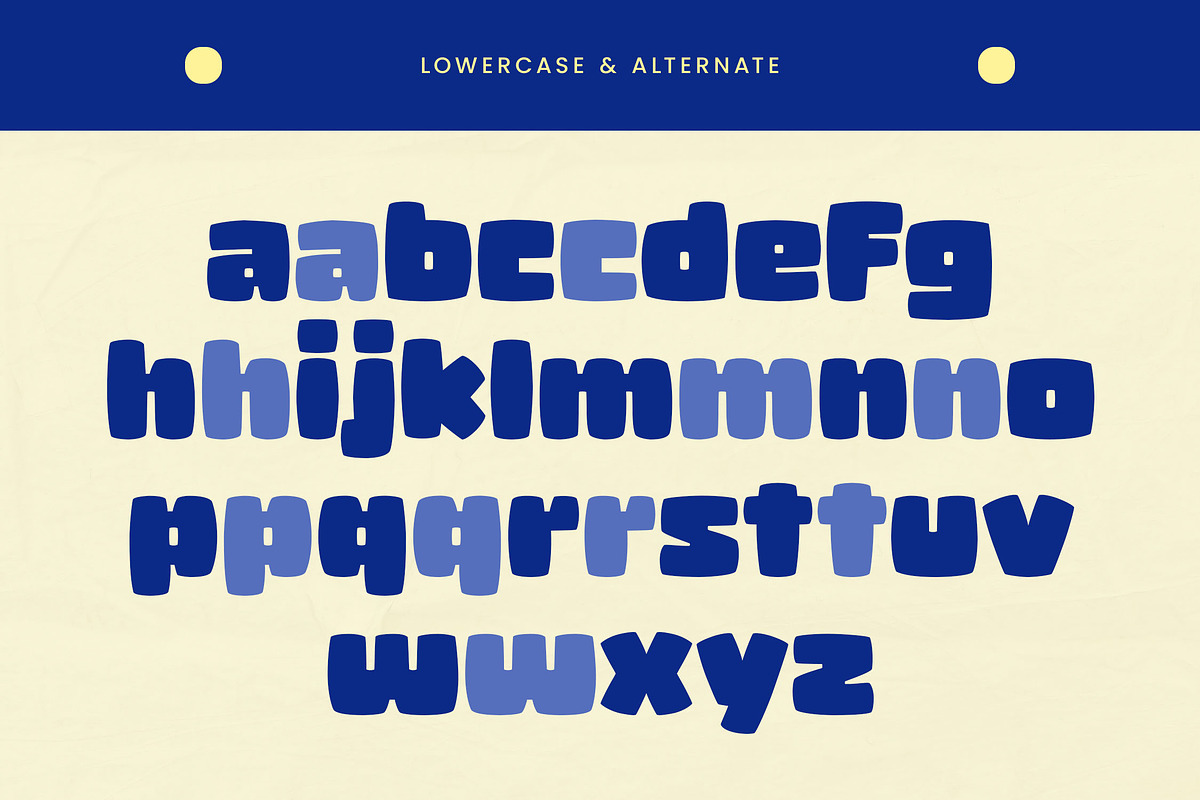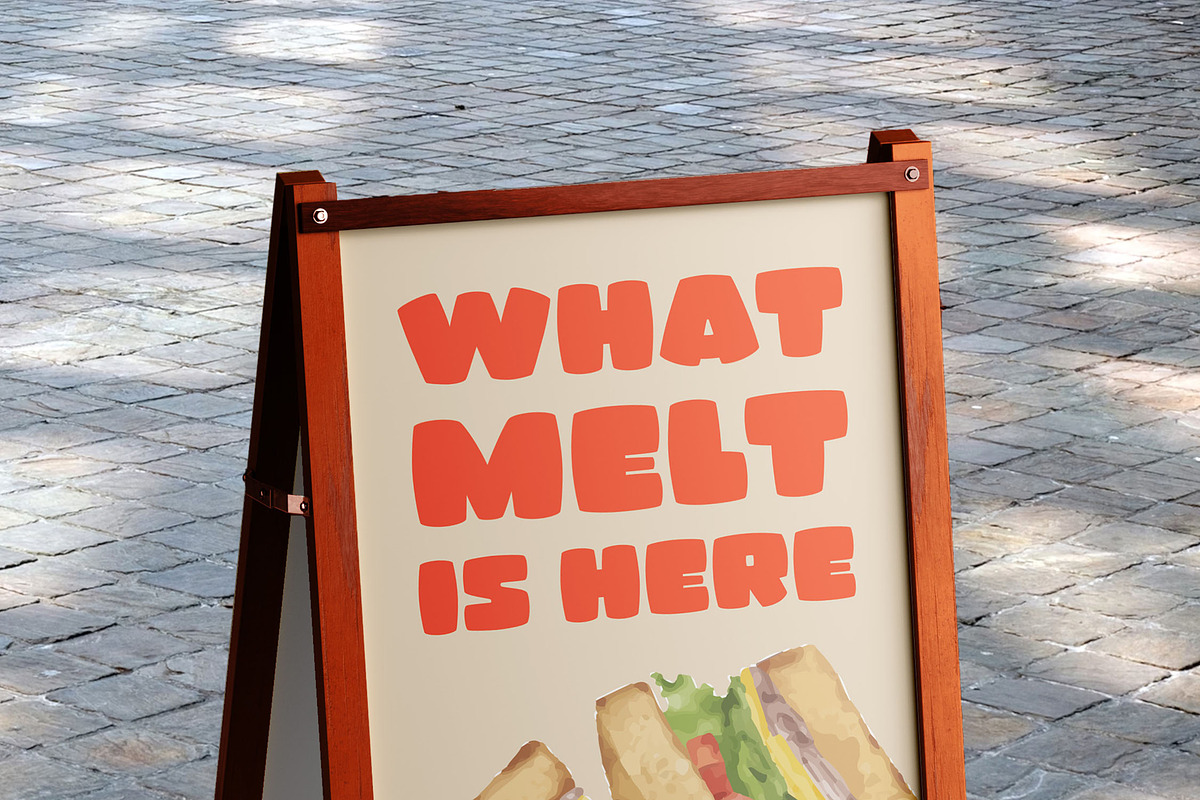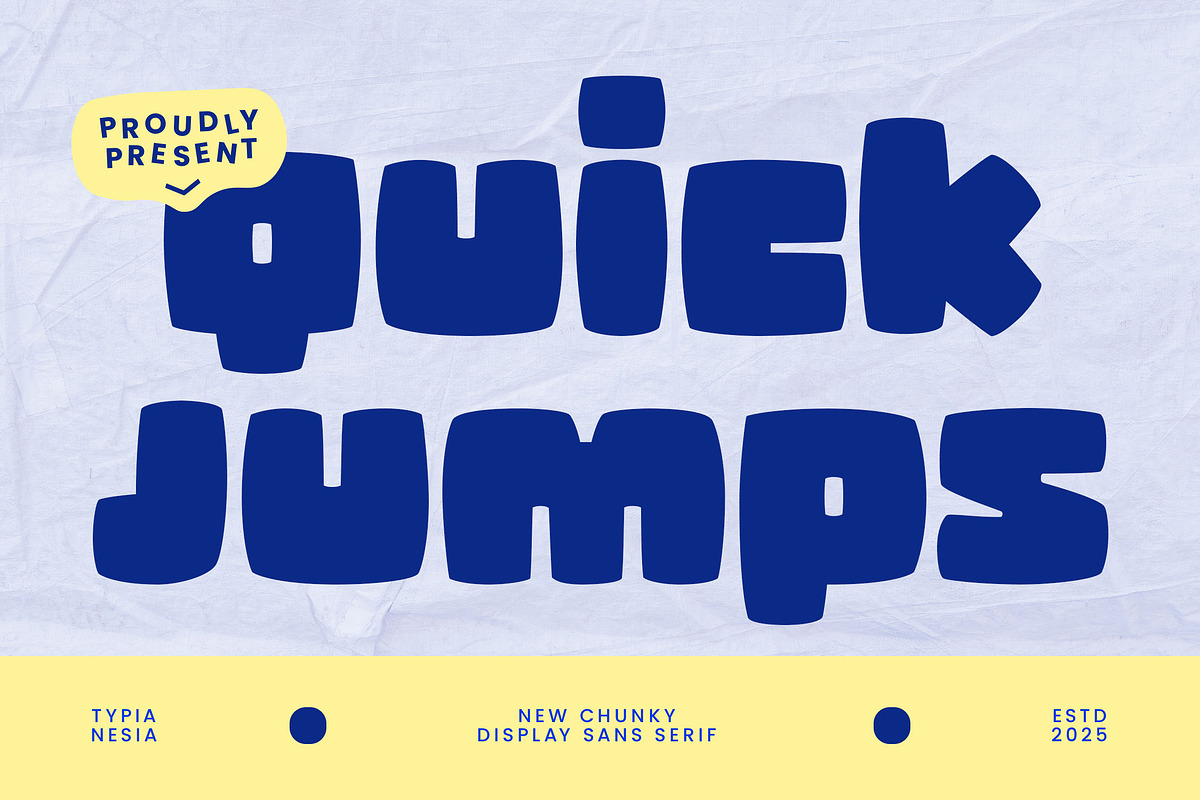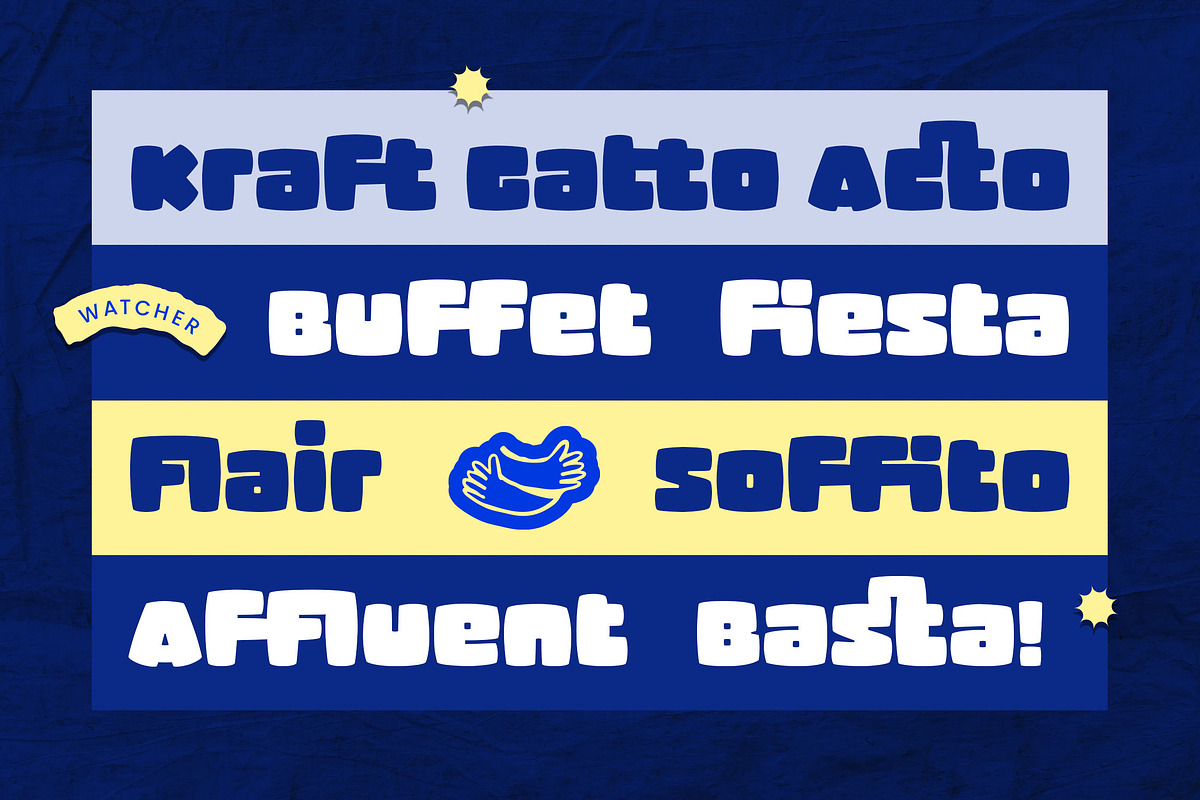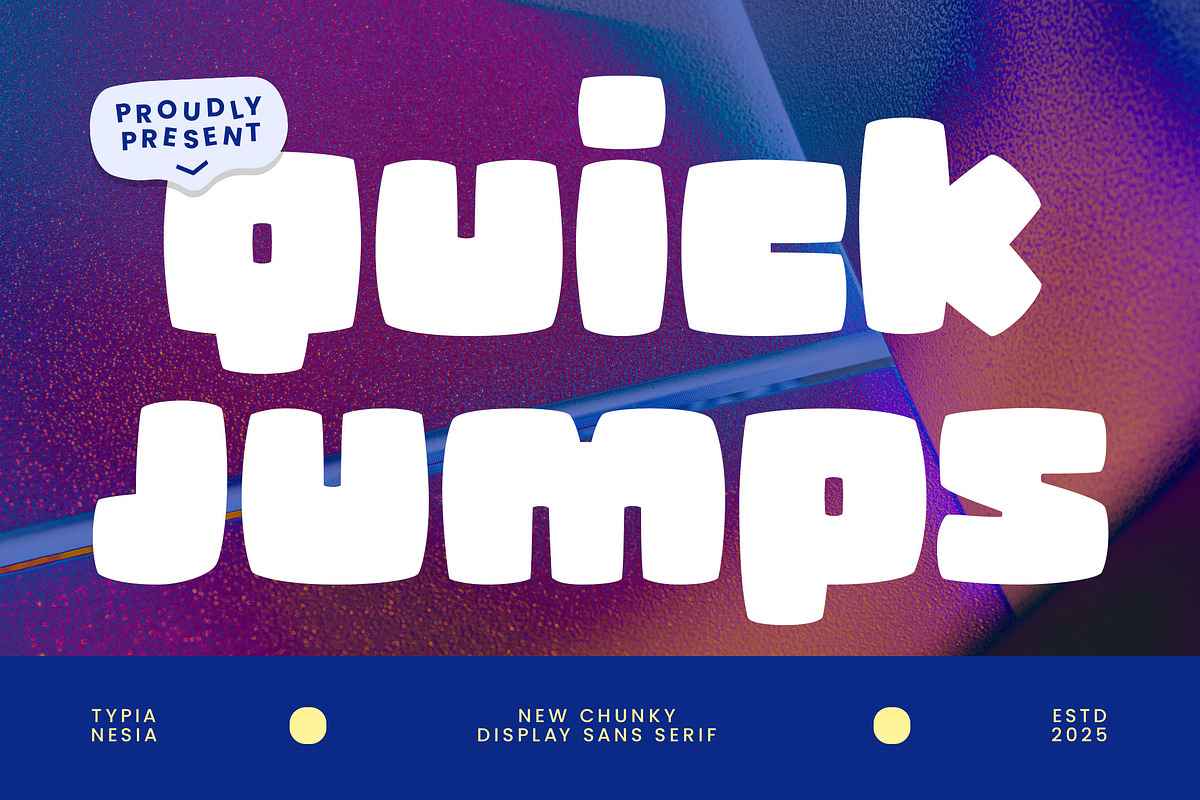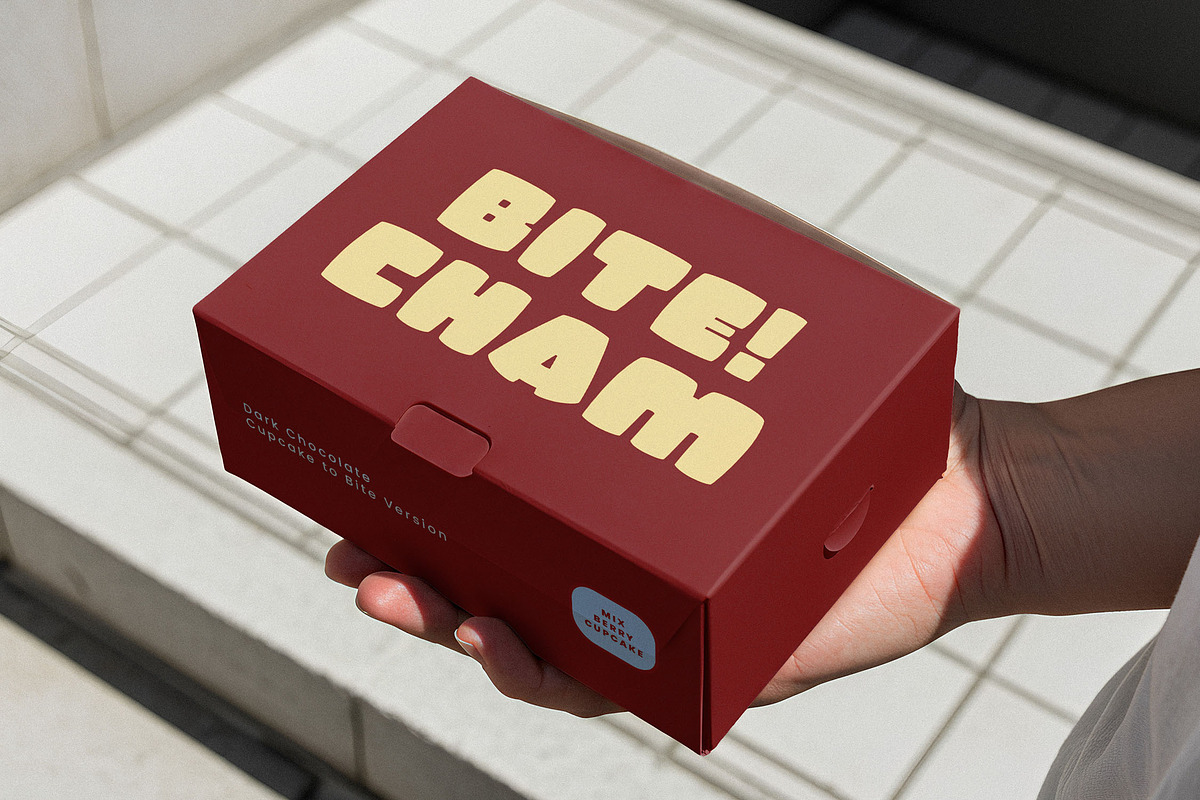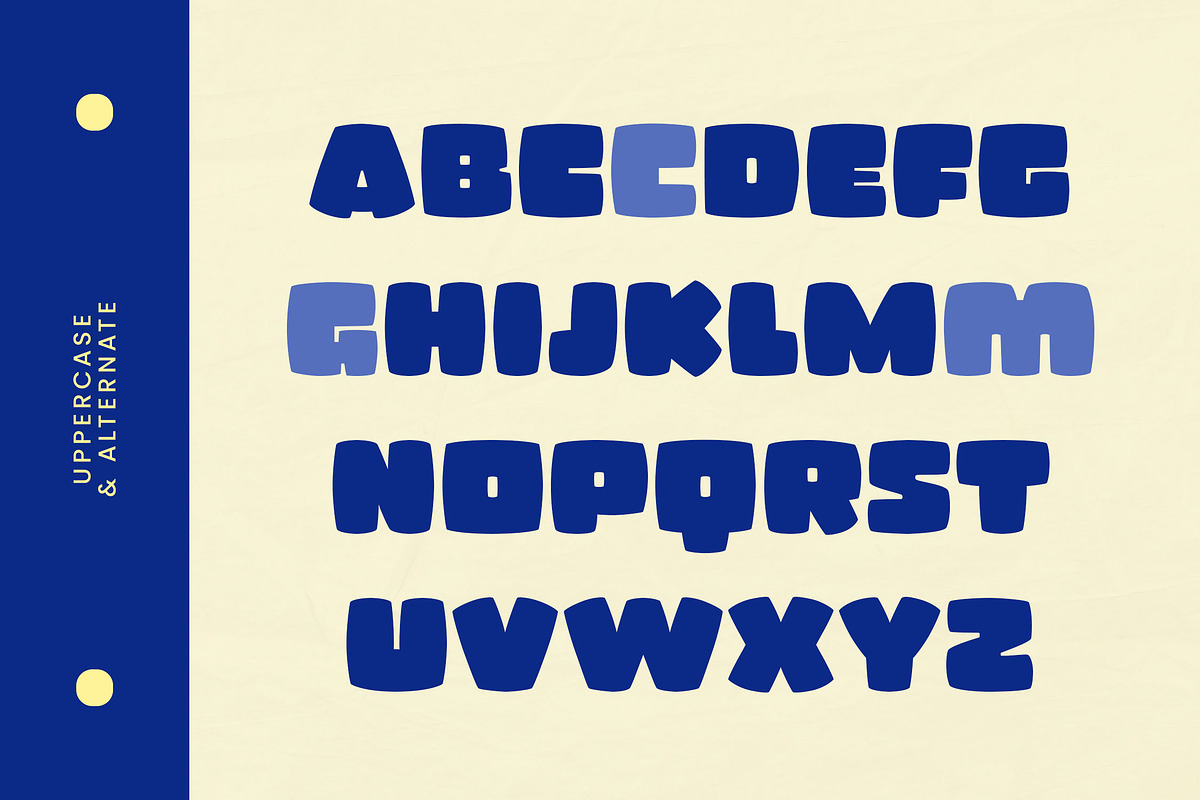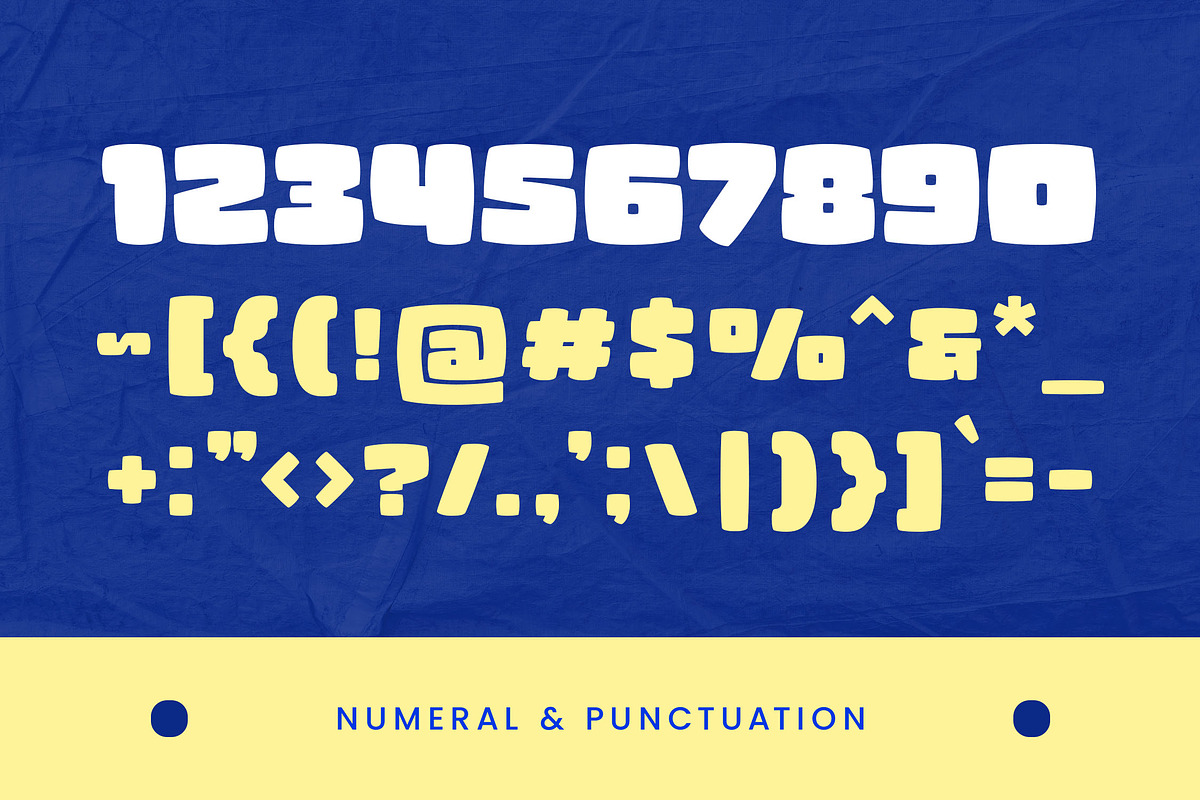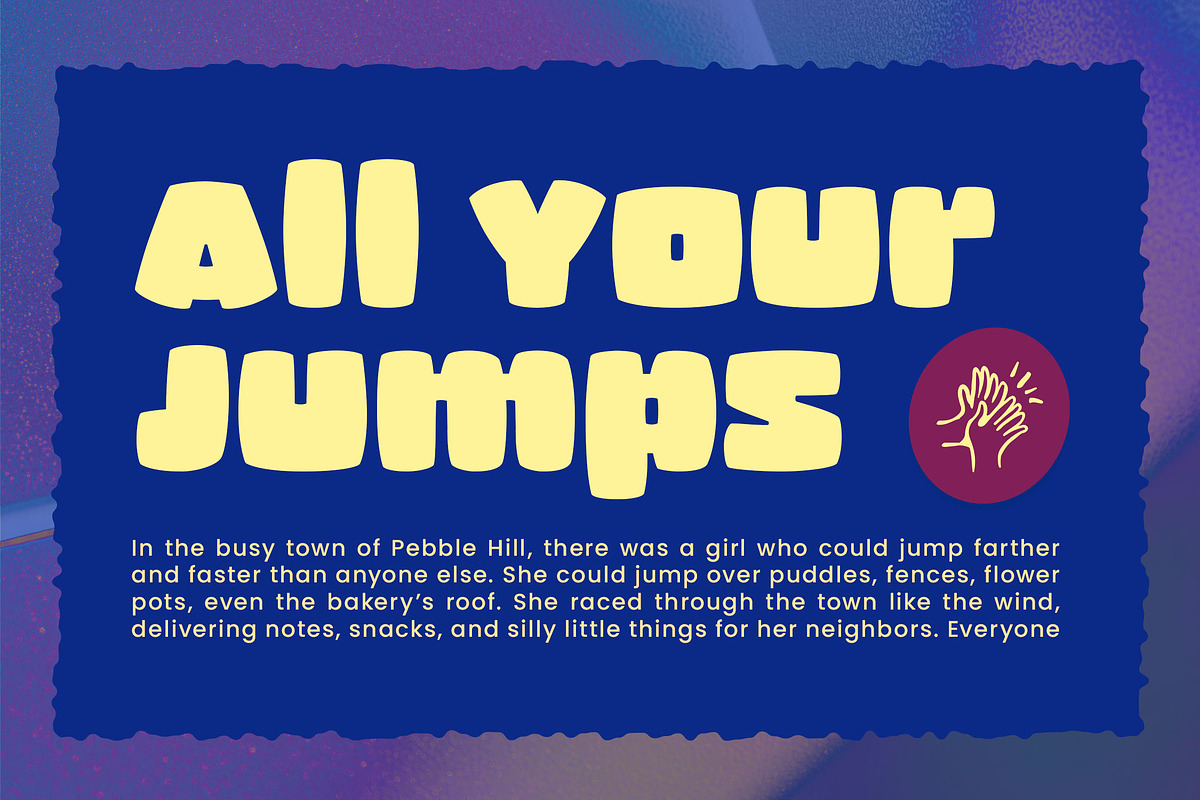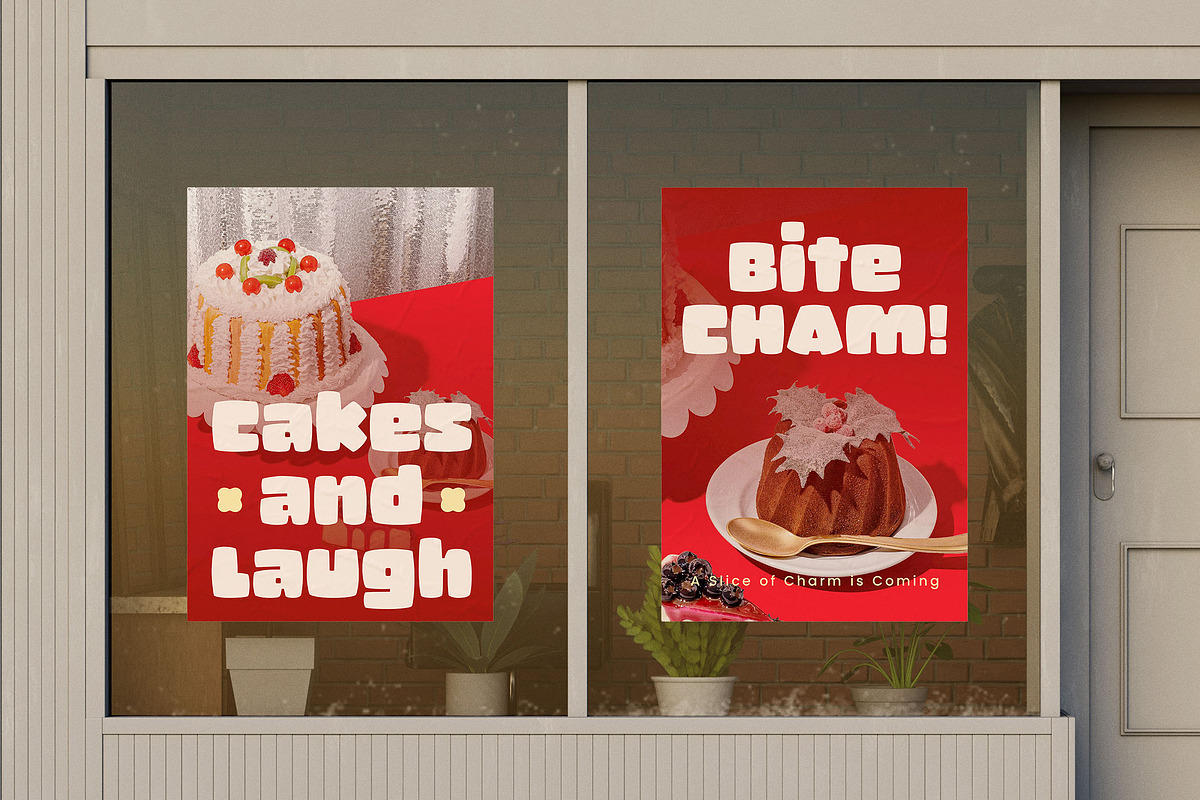
Quick Jumps - New Chunky Display
Quick Jumps - New Chunky Display Sans Serif – Playful Bold & Modern Fun Typography.
Quick Jumps is a brand new chunky display sans serif font, bringing a burst of playful energy and bold character to your designs. Its rounded, heavy forms create an immediately impactful and friendly impression, perfect for grabbing attention. Quick Jumps is ideal for projects that demand a fun, modern, and energetic vibe, such as children's books, food packaging (like cupcakes!), cartoon, vibrant posters, dynamic branding, logo design, advertising campaign, captivating headlines and any project. Its clear, robust letterforms ensure excellent readability even at larger sizes, making it a versatile choice for both digital and print applications. With full uppercase and lowercase support, along with comprehensive numeral and punctuation sets, Quick Jumps offers everything you need to create designs that truly "jump" off the page or screen.